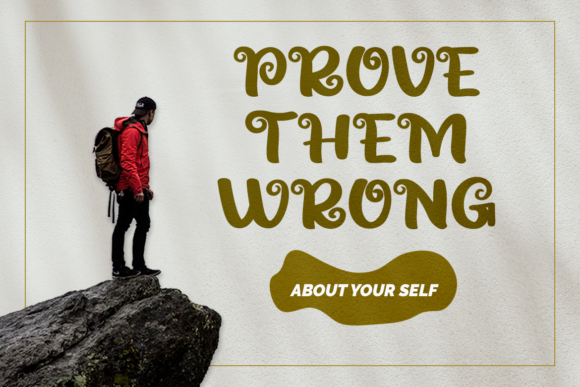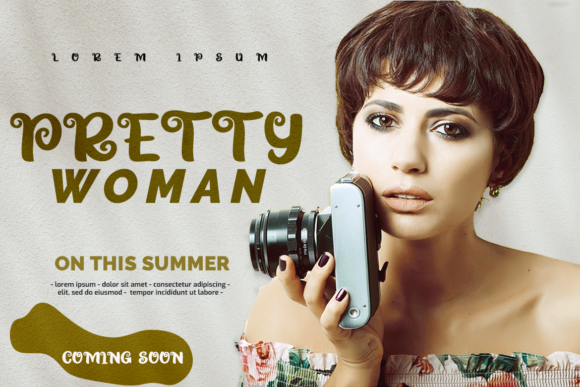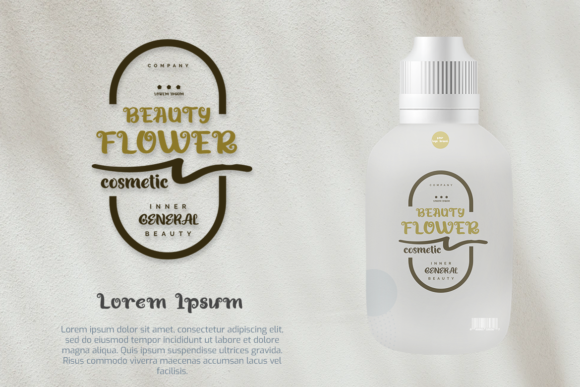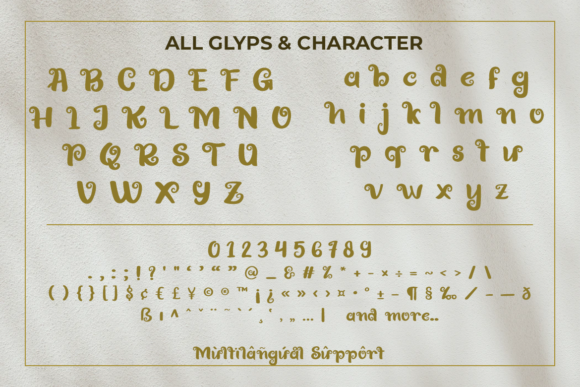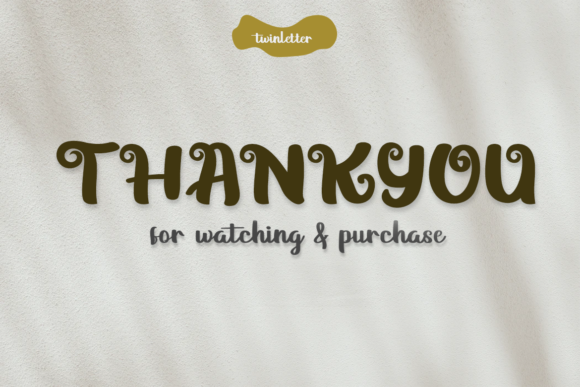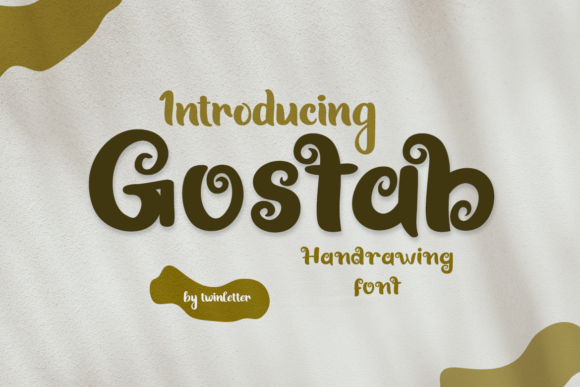
Gostab Font: Elevate Your Designs with a Unique and Flowing Handwritten Style
Are you tired of using the same old fonts in your designs? Look no further than Gostab Font, a stunning handwritten font that is sure to capture the attention of your audience. Created with the help of a brush pen, Gostab boasts a unique and flowing style that is incredibly versatile and perfect for a wide range of design projects.
The Story Behind Gostab Font
Gostab Font is the brainchild of a talented designer who sought to create a font that would add a personal touch to digital and print designs. With its roots in traditional handwriting, Gostab Font has been carefully crafted to mimic the fluid movements of a brush pen, giving it a distinctive and organic feel.
Key Features of Gostab Font
- Unique and Flowing Style: Gostab Font features a beautiful, cursive script that is both elegant and eye-catching.
- Handwritten with a Brush Pen: The font’s handmade nature gives it a personal and authentic feel that is perfect for designs that require a touch of personality.
- Incredibly Versatile: Whether you’re designing wedding invitations, social media posts, or stationery art, Gostab Font is the perfect choice.
- Easy to Read: Despite its ornate style, Gostab Font is surprisingly easy to read, making it perfect for both digital and print designs.
Uses for Gostab Font
Gostab Font is an incredibly versatile font that can be used in a wide range of design projects, including:
- Wedding Invitations: Add a touch of elegance and sophistication to your wedding invitations with Gostab Font.
- Stationery Art: Create beautiful stationery art, including greeting cards, thank you cards, and more.
- Social Media Posts: Make your social media posts stand out with Gostab Font’s unique and eye-catching style.
- Branding and Packaging: Use Gostab Font to add a personal touch to your brand’s packaging and marketing materials.
Why Designers and Crafters Love Gostab Font
Gostab Font has quickly become a favorite among designers and crafters, and for good reason. Here are just a few reasons why:
- Unique Style: Gostab Font offers a unique and distinctive style that sets it apart from other fonts.
- Ease of Use: The font is incredibly easy to use, even for those with limited design experience.
- High-Quality Design: Gostab Font is designed to the highest standards, ensuring that your designs look professional and polished.
Tips for Using Gostab Font
Here are a few tips for getting the most out of Gostab Font:
- Experiment with Different Sizes: Gostab Font looks great in a variety of sizes, so don’t be afraid to experiment to find the perfect size for your design.
- Pair with Other Fonts: Gostab Font pairs well with a variety of other fonts, so try combining it with other fonts to create a unique and eye-catching design.
- Use in Digital and Print Designs: Gostab Font is perfect for both digital and print designs, so don’t be afraid to use it in a variety of different projects.